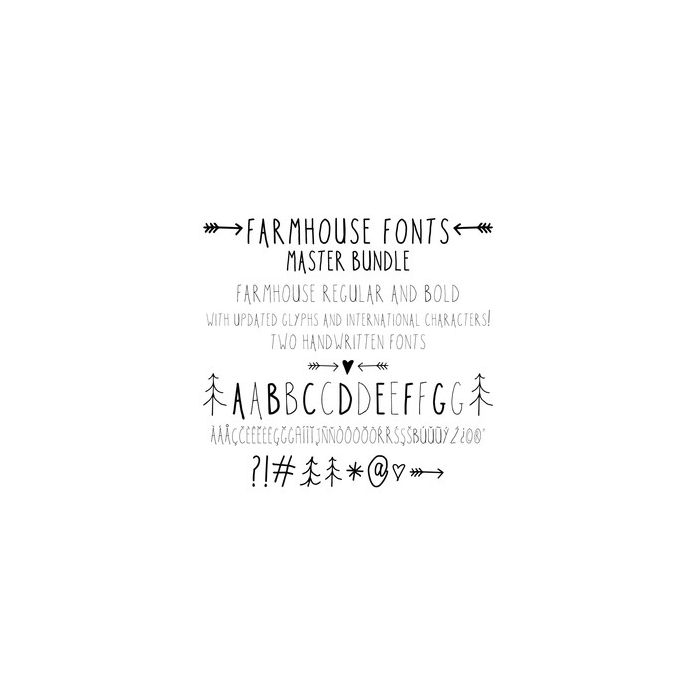
Farmhouse Font Bundle With Updates including new Glyphs and International Characters! Features my best selling Farmhouse Regular and Farmhouse Bold Hand Written Fonts. Both Have Been Updated With International Characters and New Glyphs. My other fonts can be found here in the Silhouette store.